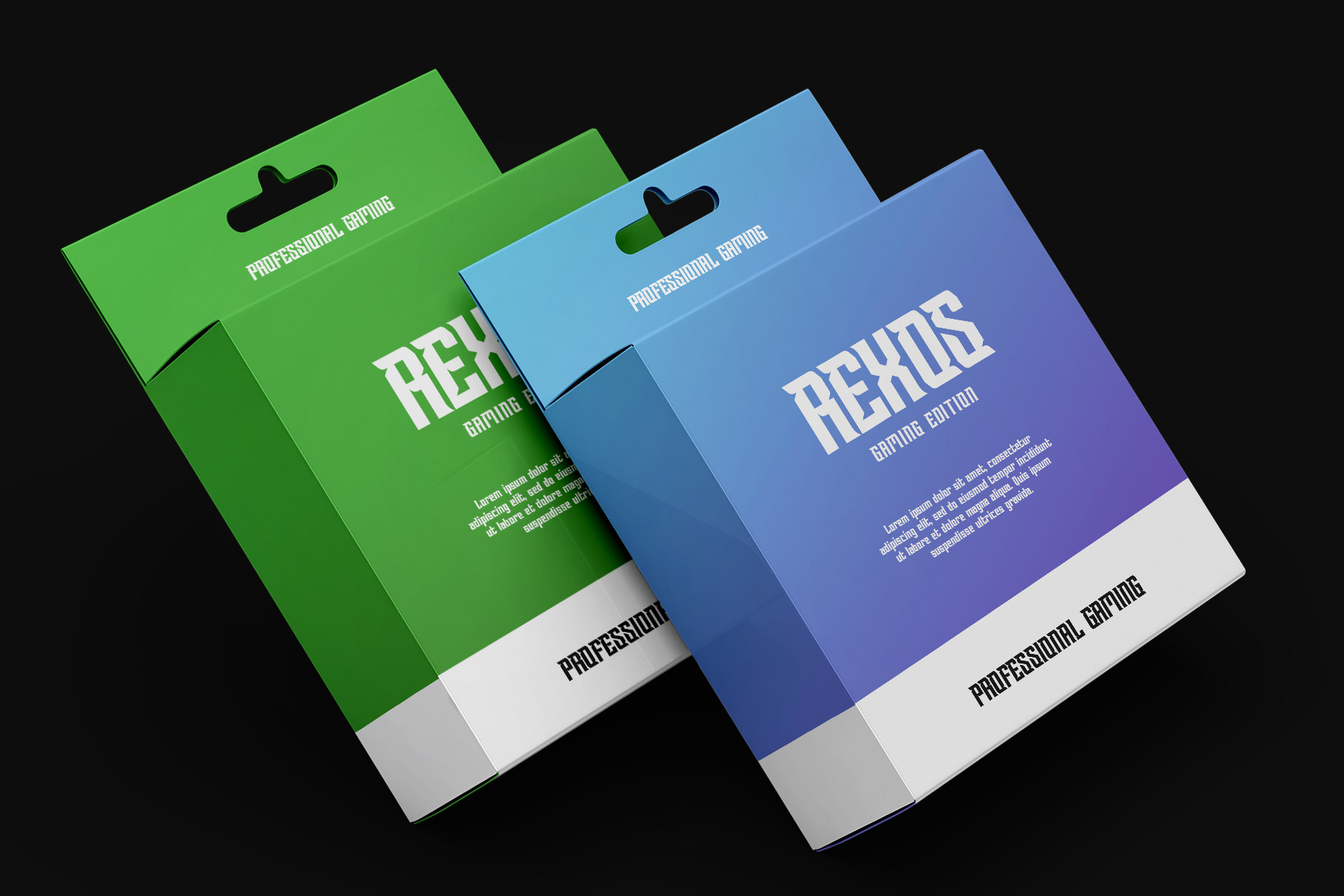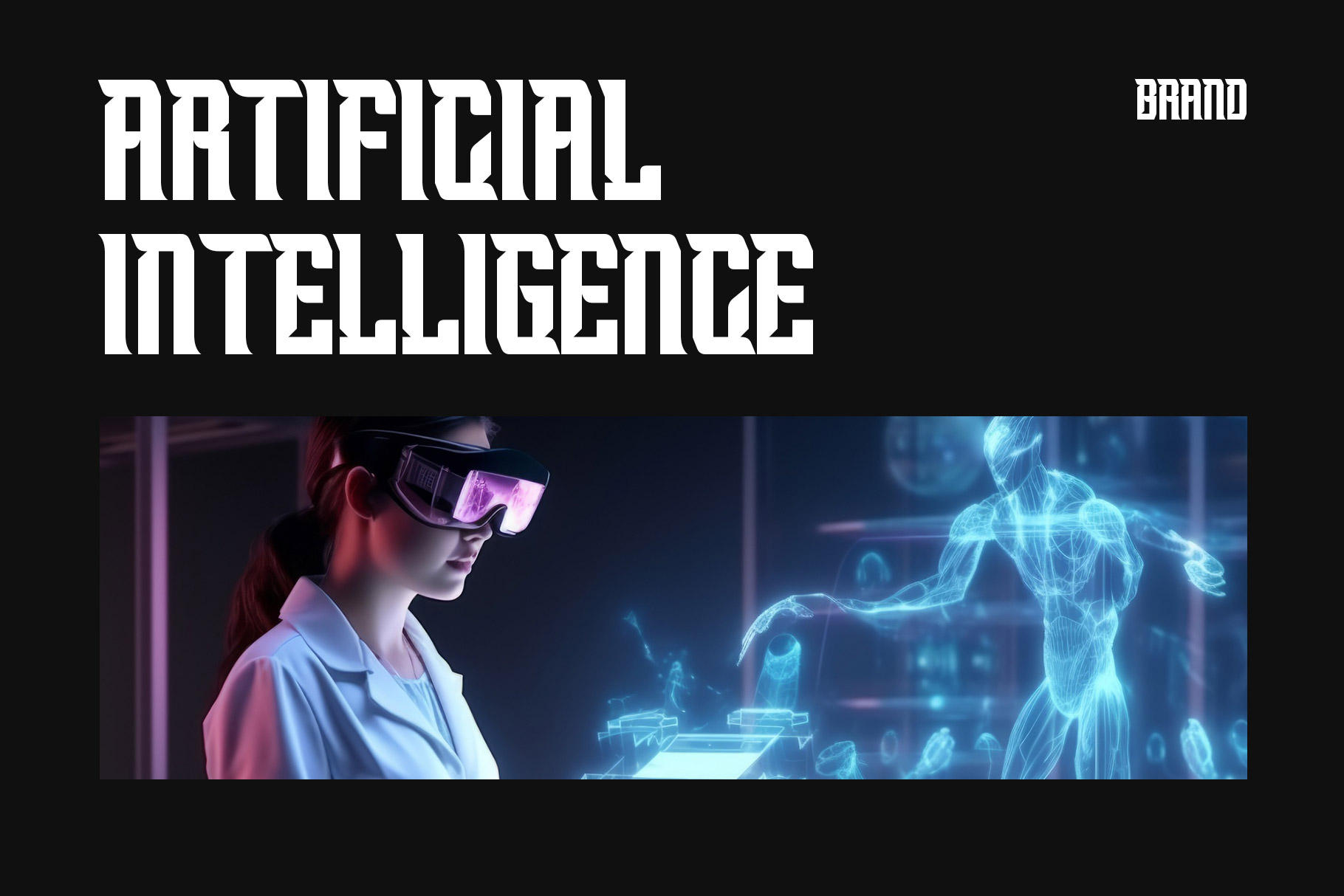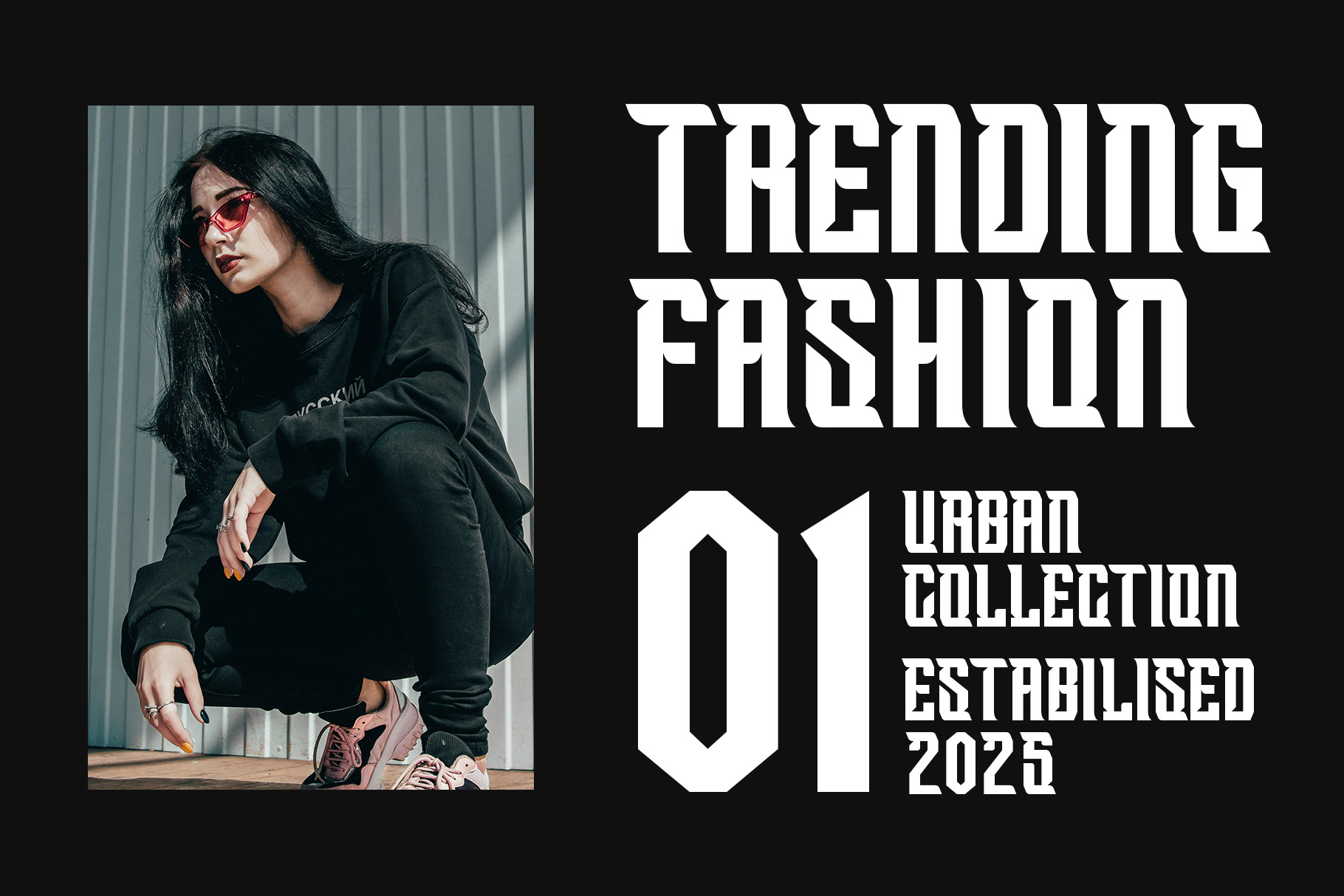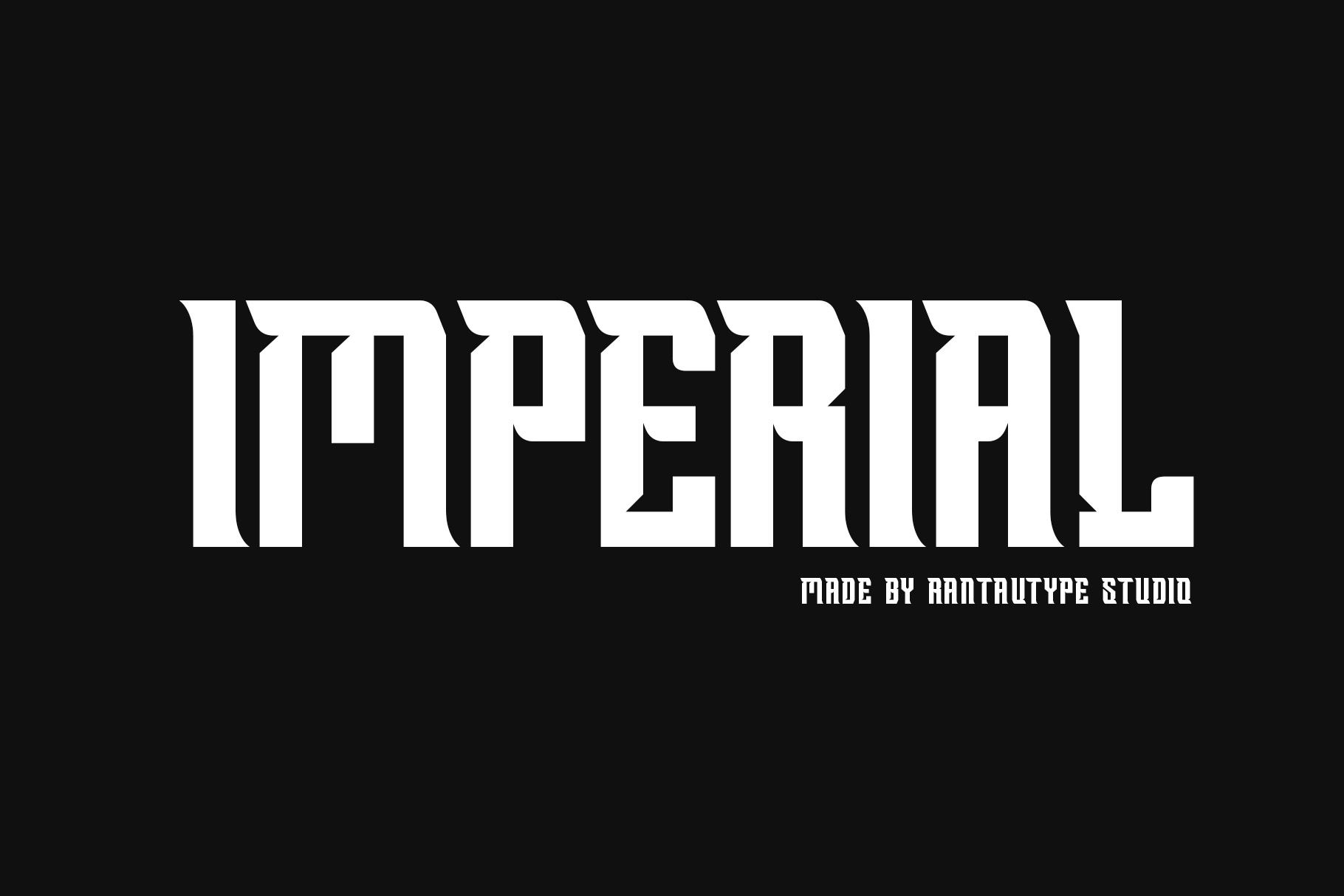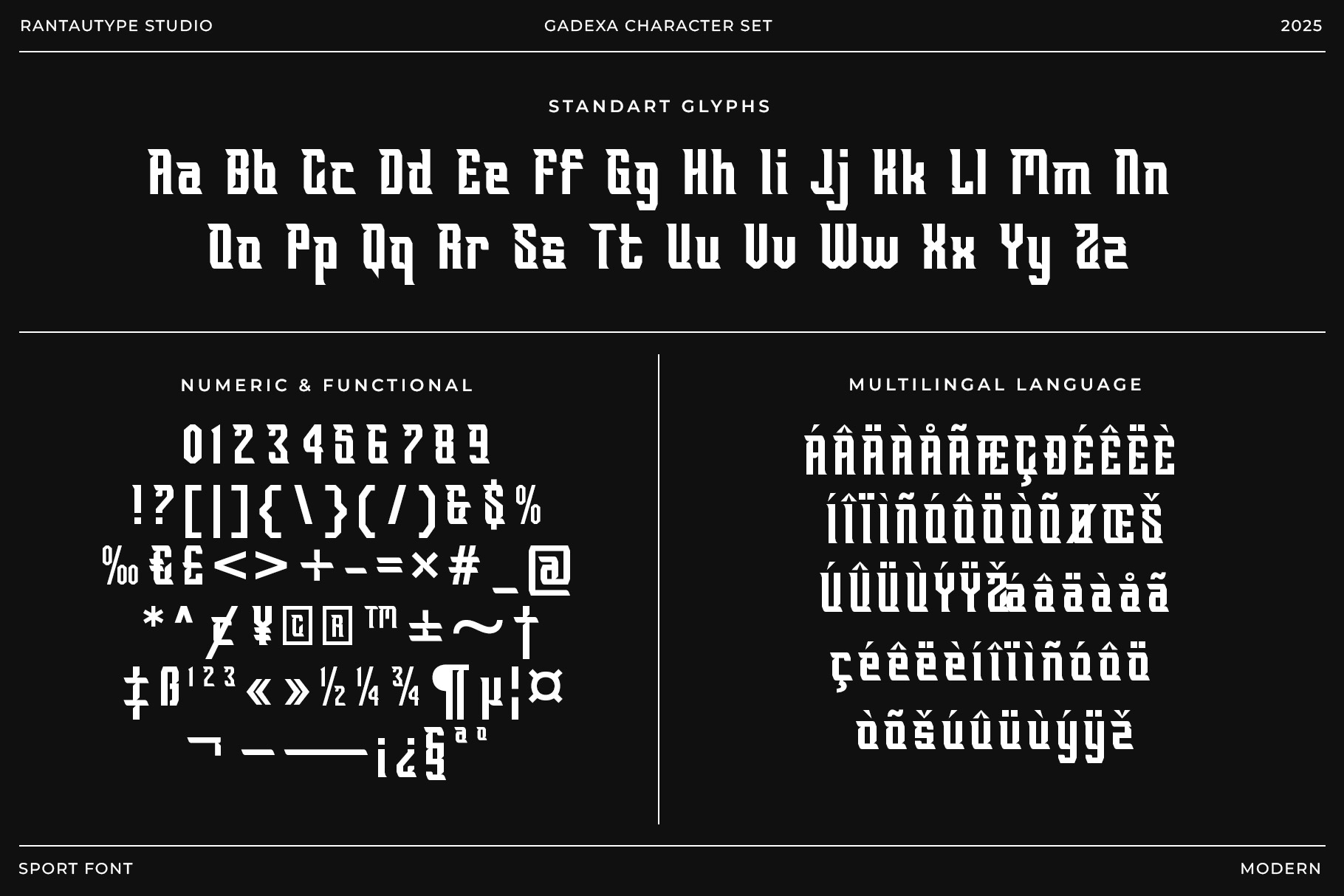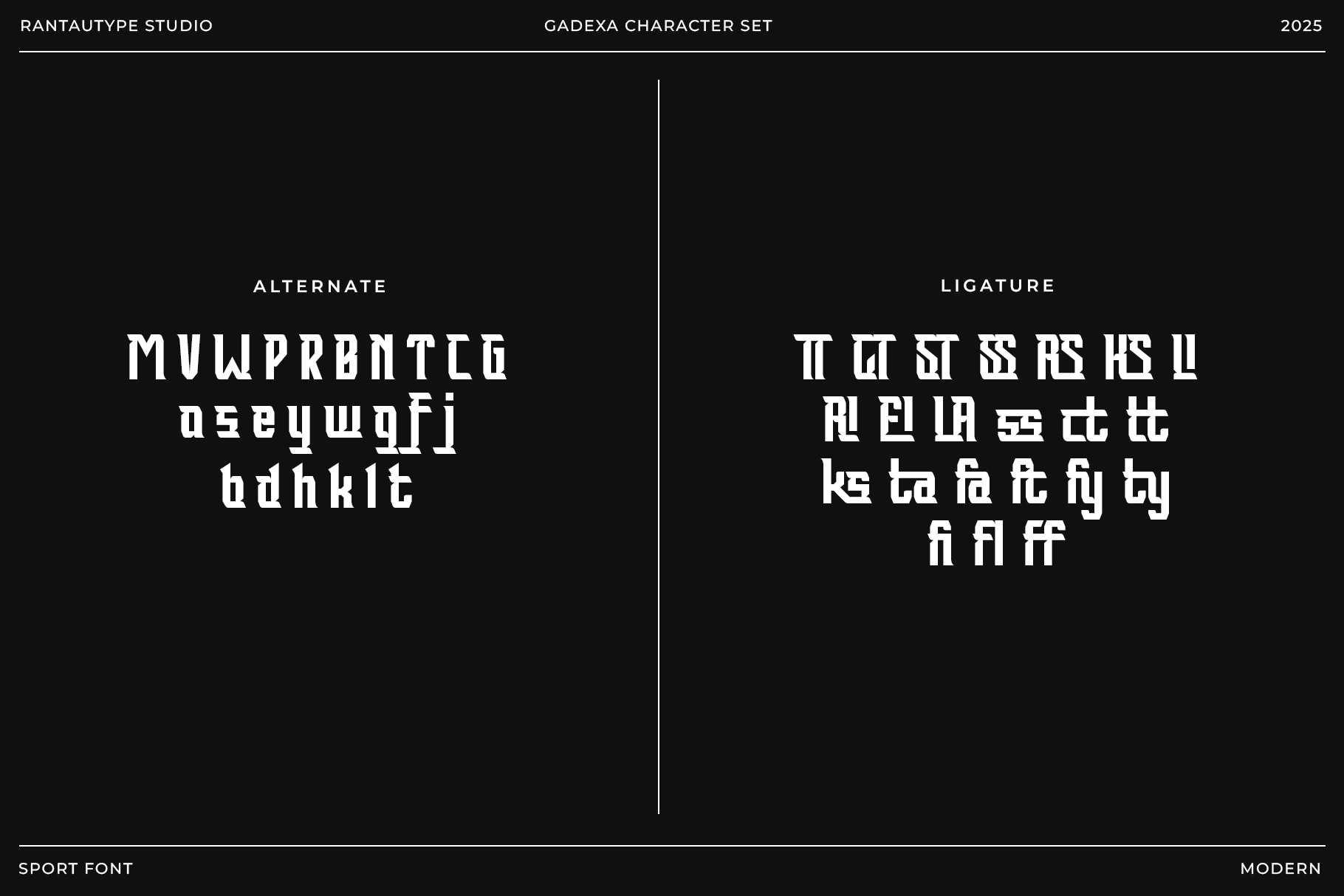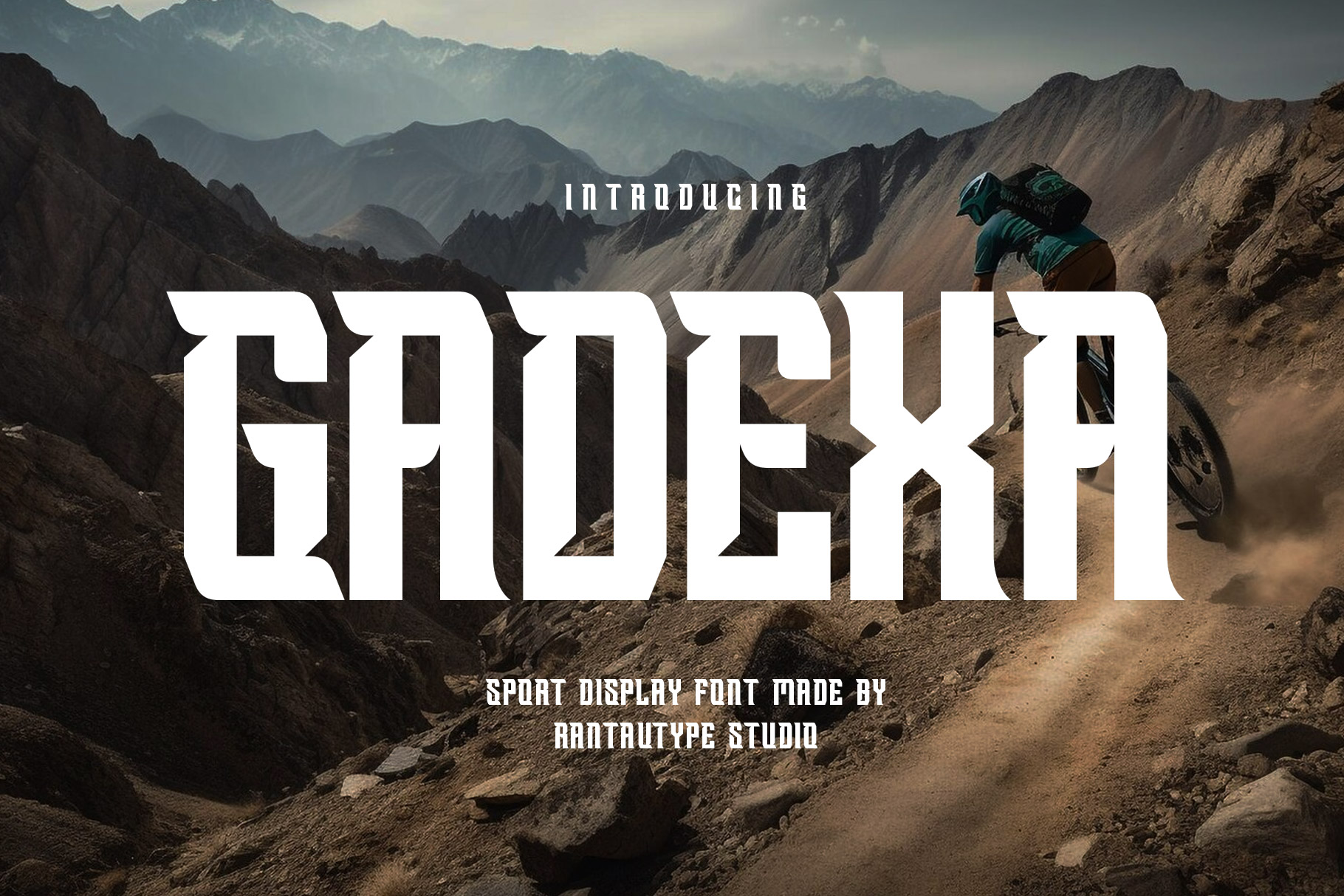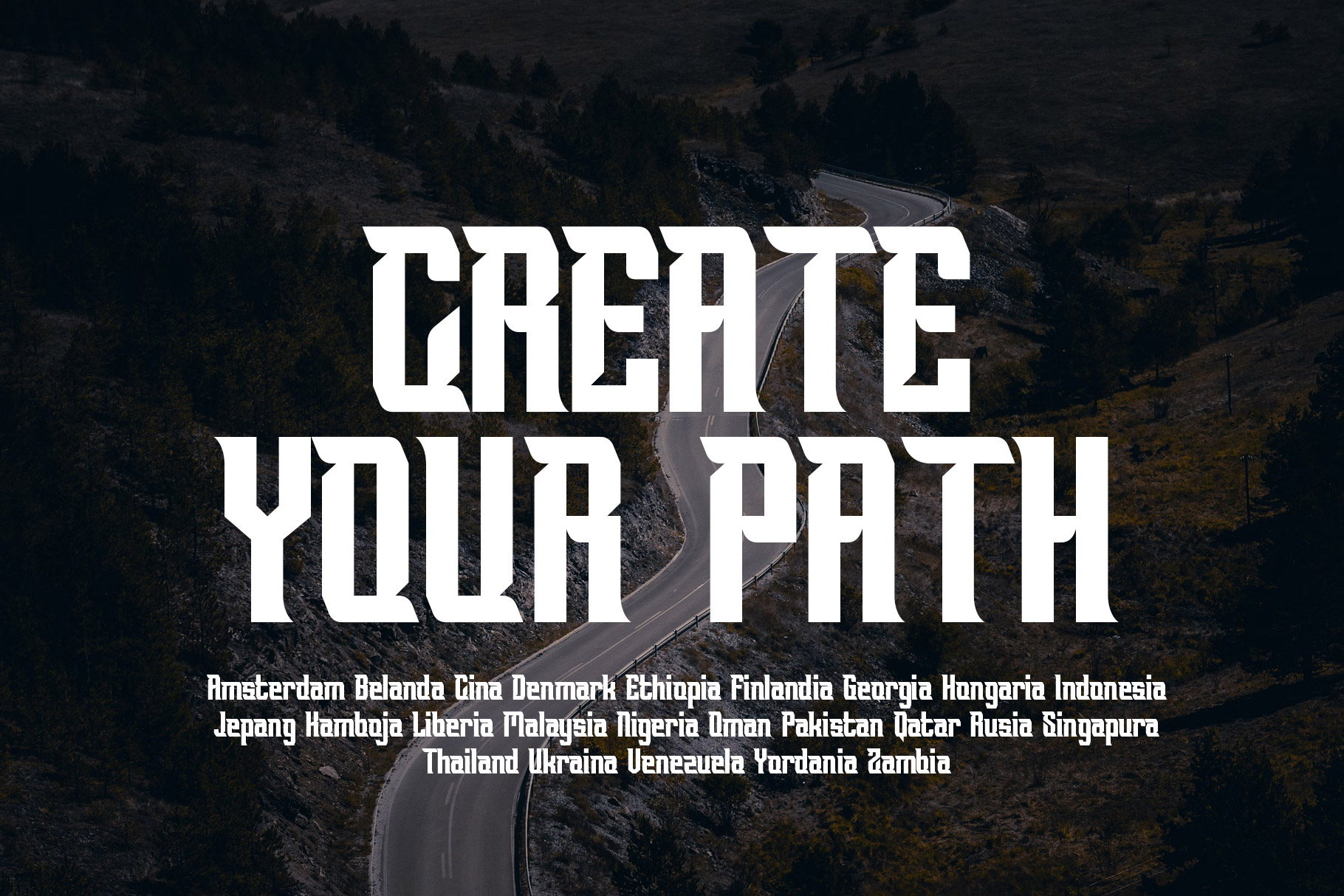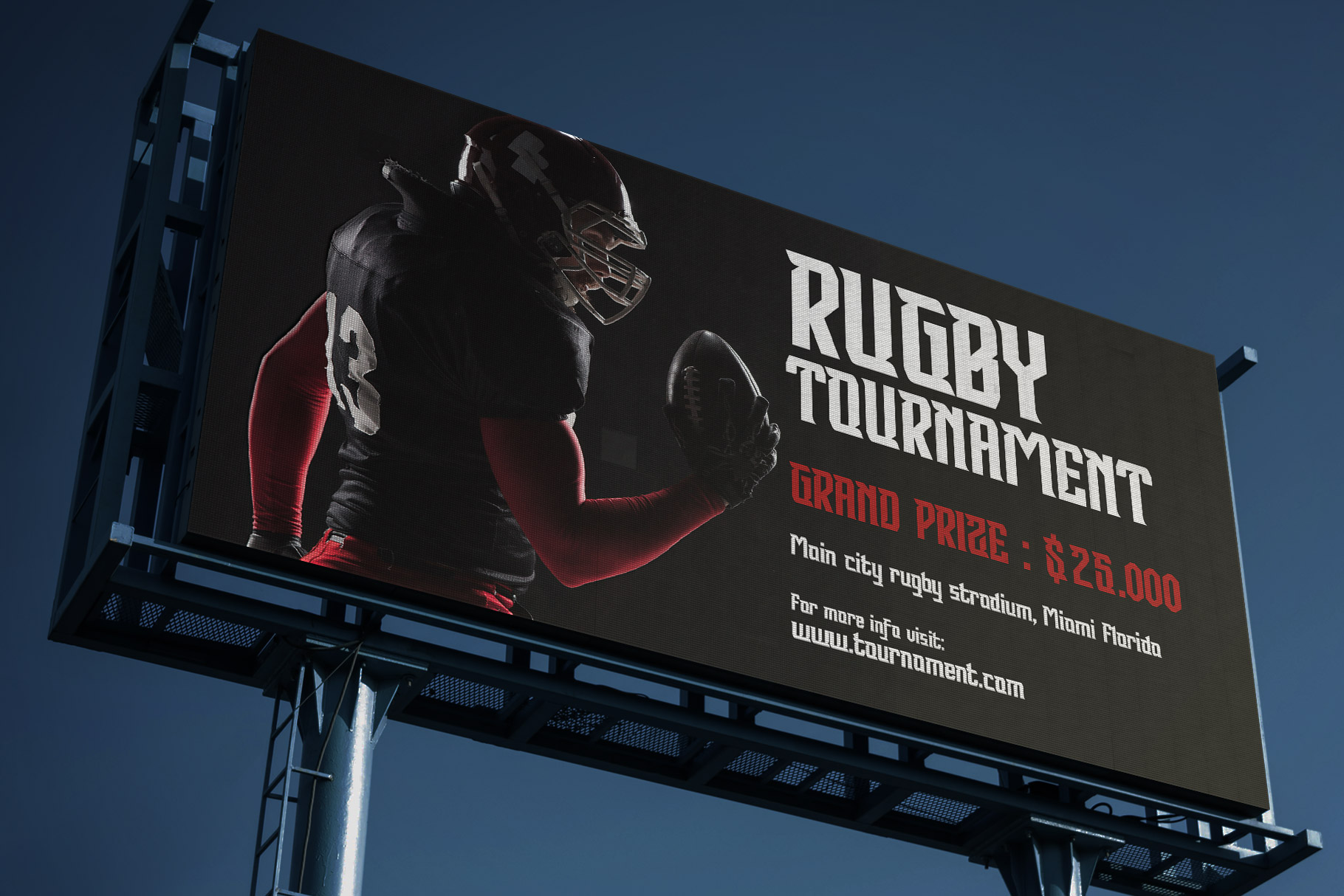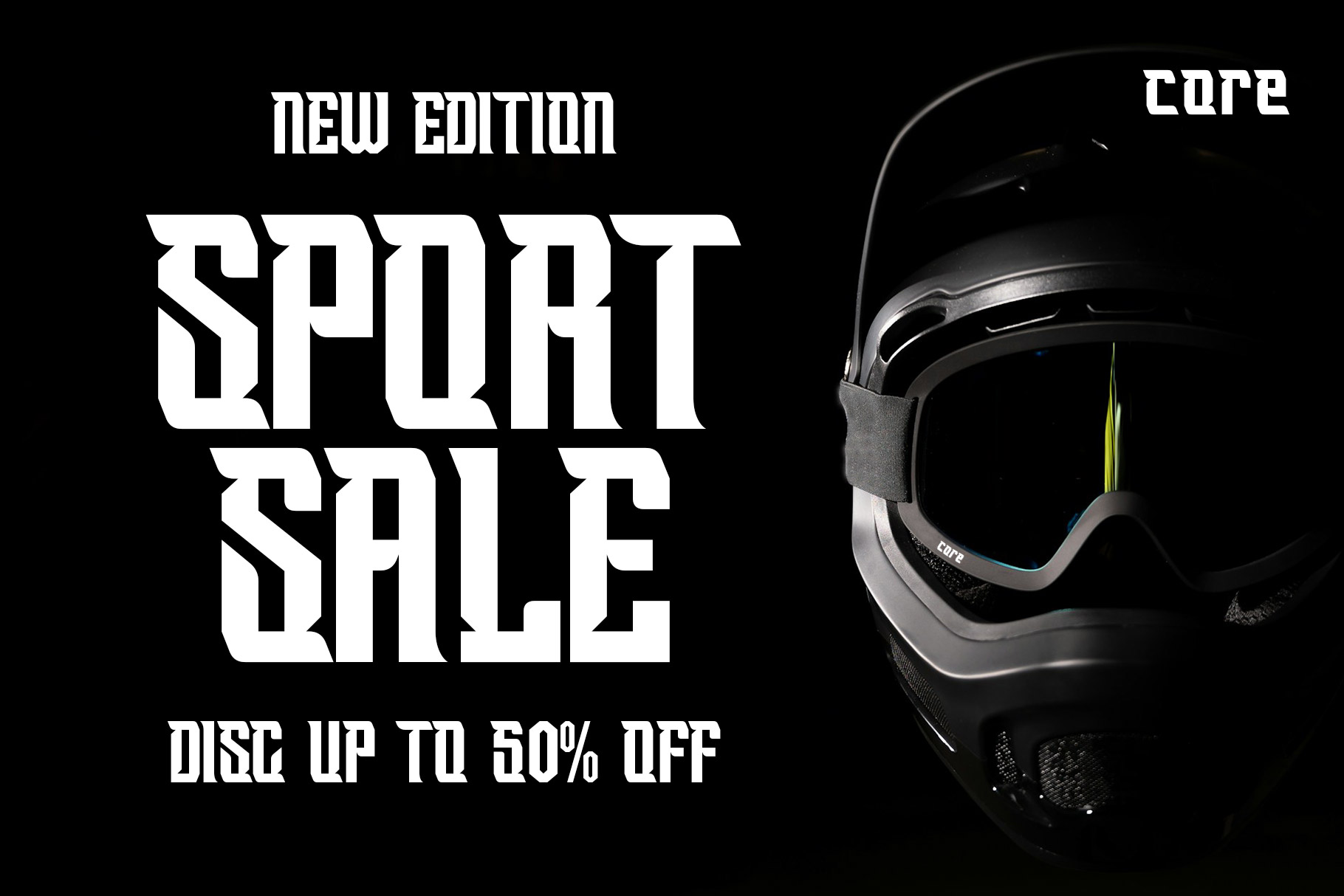
Gadexa Sport Display Font
Gadexa is modern sport font with authentic style. Gadexa is a perfectly choice for any creative endeavor, sporty, lifestyle design such as logotype, advertisements, watermark on photography, stationery, branding project, display and magazine, invitation, corporate brand, product design, label, business project and many other project with sporty touch.